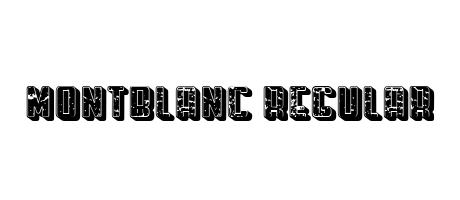
Montblanc
Montblanc Regular boasts a bold, blocky serif design. Its chunky letterforms possess a subtly distressed, almost stone-carved texture, adding a rugged, vintage feel. The slightly uneven edges give it a hand-hewn, artisanal quality, contrasting the strong, geometric structure of the letters. The overall effect is powerful yet subtly imperfect.